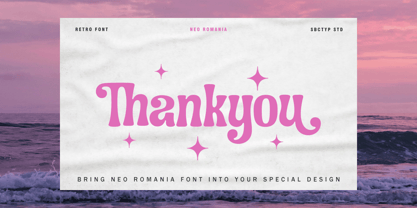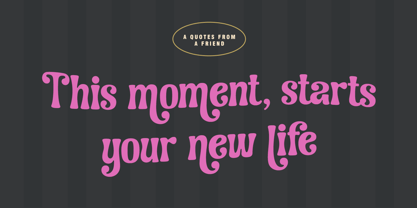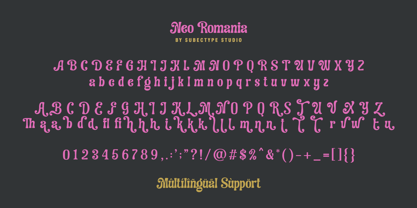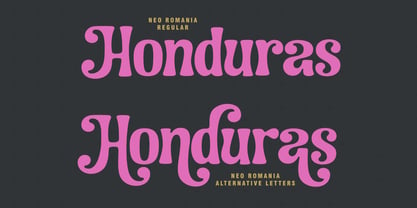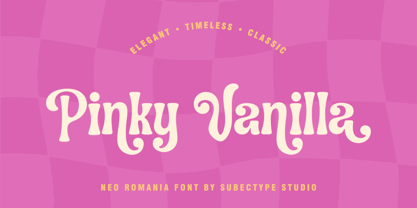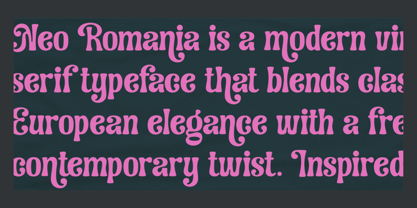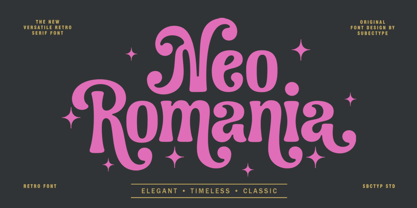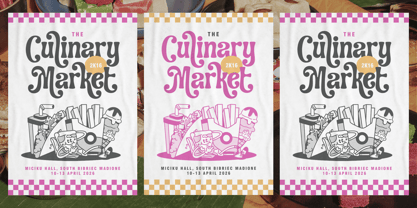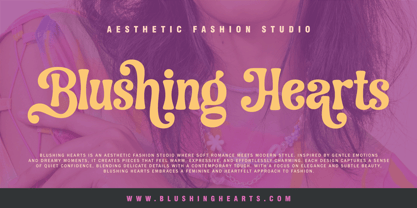
Neo Romania
by Subectype
The Neo Romania Font Family was designed by Rangga Subekti and published by Subectype. Neo Romania contains 1 styles. More about this family
Neo Romania is an elegant, timeless, and classic serif font that blends vintage charm with modern versatility. Inspired by retro aesthetics, it features soft curves, bold strokes, and distinctive ornamental details that bring a sense of sophistication and character to any design. Perfect for branding, packaging, editorial layouts, logos, and display purposes, Neo Romania delivers a refined yet playful personality. Its unique letterforms evoke nostalgia while maintaining a fresh and stylish appeal, making it suitable for both classic and contemporary projects.
Designers: Rangga Subekti
Foundry: Subectype